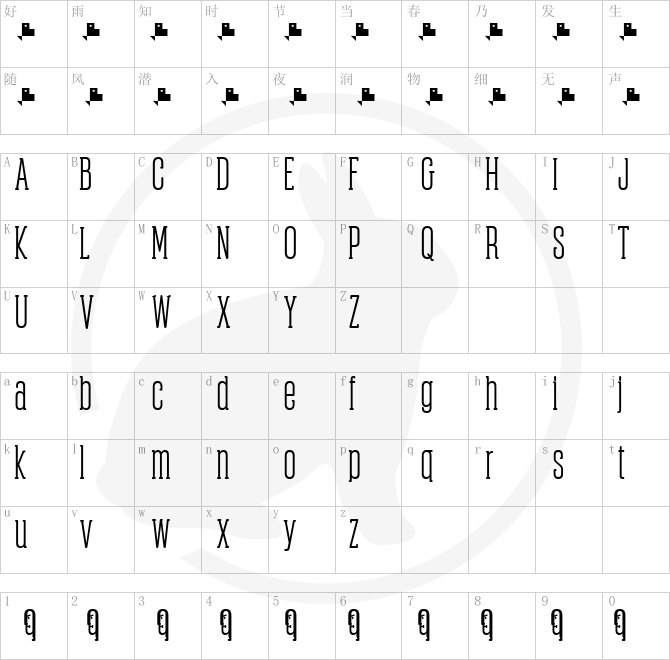
- Font Name:Obcecada Serif
ObcecadaSerif-Bold.ttf is a very beautiful artistic font, ObcecadaSerif-Bold.ttf is widely used in the design and printing of various books and pictures,ObcecadaSerif-Bold.ttf has a strong visual impact,ObcecadaSerif-Bold.ttf is a commonly used font in newspapers, magazines and books, and is used in posters, e-commerce Poster design, store design, logo design, font design and other fields.ObcecadaSerif-Bold.